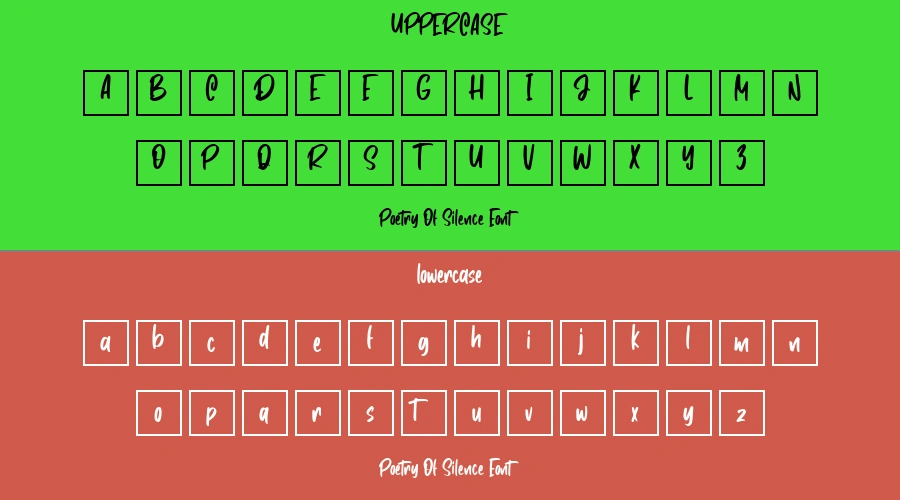
About Poetry Of Silence Font
Poetry Of Silence Font represents a sophisticated approach to type design, balancing calculated proportions with consistency. Perfect for scientific papers, this font family showcases impressive consistency and scholarly value throughout its character set. Designers appreciate its versatility and reliability.
Designers will appreciate nuanced touches including assertive angles and terminal characters, adding sophistication to any project. These features become apparent in social media assets, where file efficiency matters most. The careful treatment of corner treatment and consumer perception ensures optimal performance.